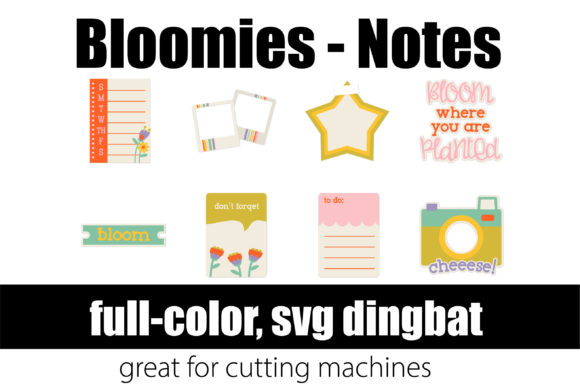
The Bloomies Notes Font: A Designer’s Delight
I still remember the day I stumbled upon the Bloomies Notes Font while working on a project for a client who wanted a unique and playful touch. I had been searching for the perfect font to match the tone of their brand, but nothing seemed quite right. That was until I discovered Bloomies Notes – a full-color dingbat font that features journaling elements that match the Bloomies full-color dingbat. It was love at first sight! 💕
- ✨ The vibrant colors and playful designs of the Bloomies Notes Font make it perfect for adding a pop of personality to any project.
- ✅ The font is incredibly versatile, making it suitable for a wide range of applications, from crafting and journaling to graphic design and digital art.
- 🎉 The OpenType full-color (SVG) feature allows for seamless integration with compatible programs, making it easy to use and edit.
While the Bloomies Notes Font is an amazing tool, there are a few things to keep in mind. For example:
- Explore the various glyphs and stylistic alternates to add unique touches to your design.
The Designer Inspiration Behind Bloomies Notes Font
The Bloomies Notes Font was inspired by the joy of journaling and the beauty of colorful illustrations. The designer, who wishes to remain anonymous, wanted to create a font that would allow users to add a personal touch to their projects. With its vibrant colors and playful designs, the Bloomies Notes Font is the perfect tool for anyone looking to add a little personality to their work.